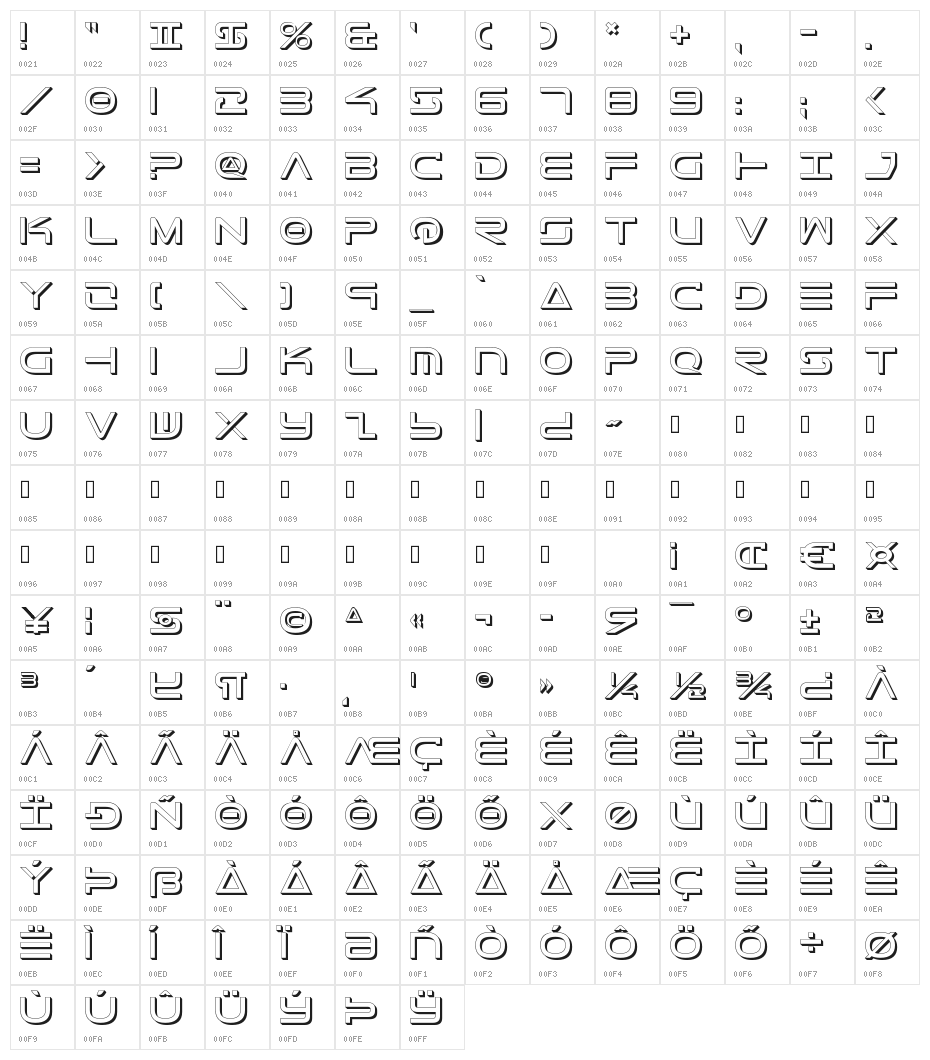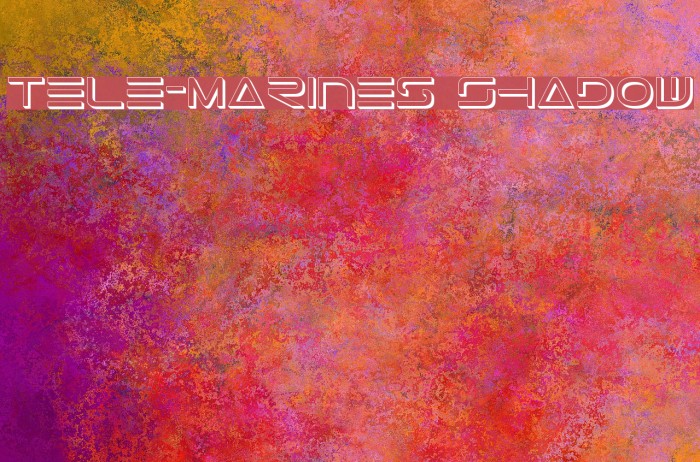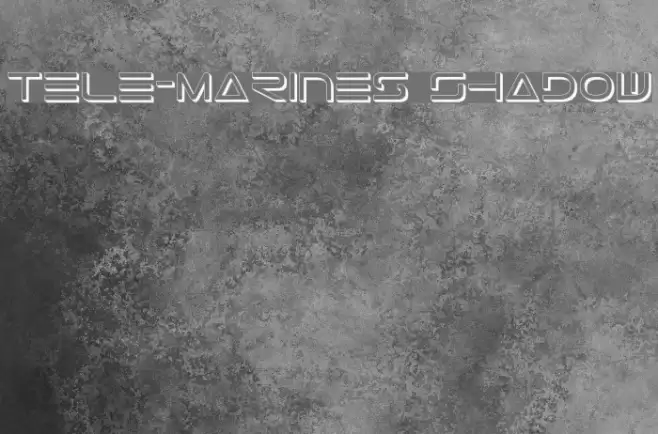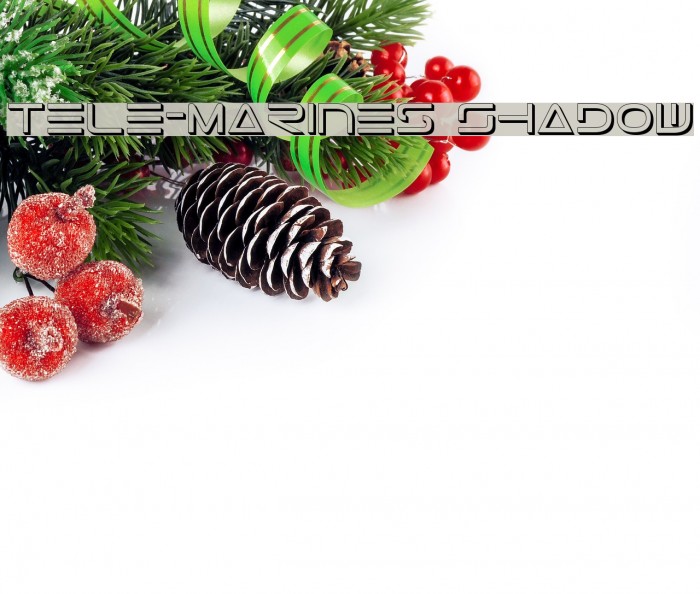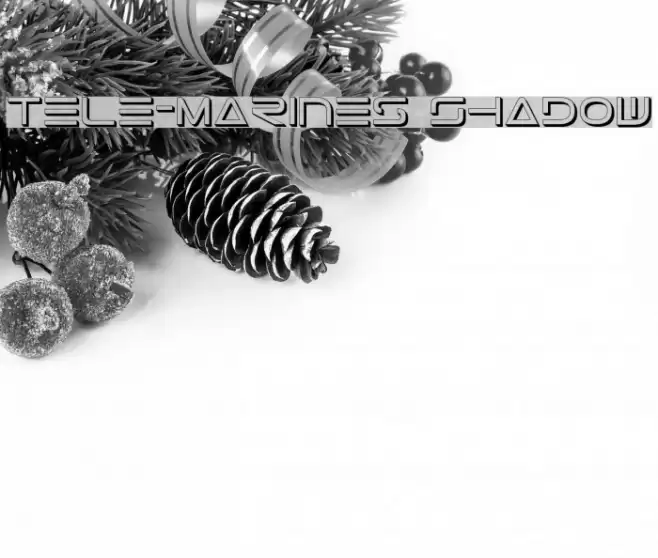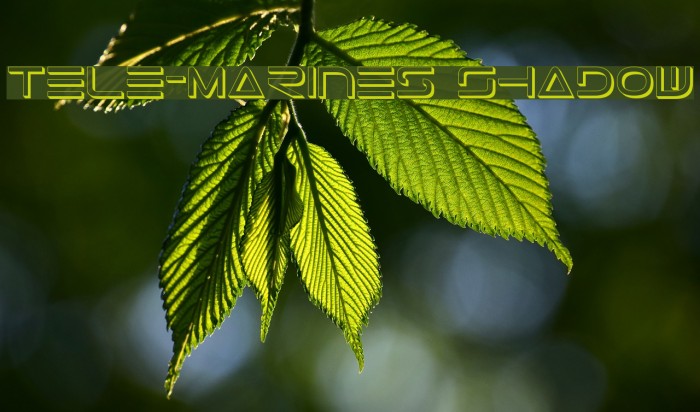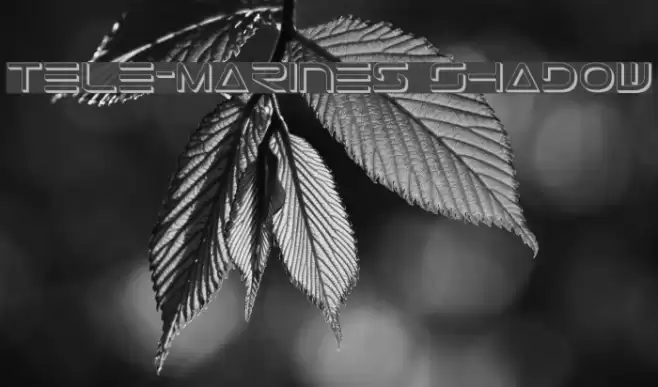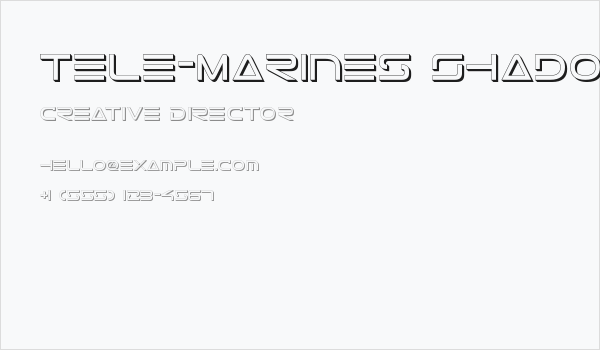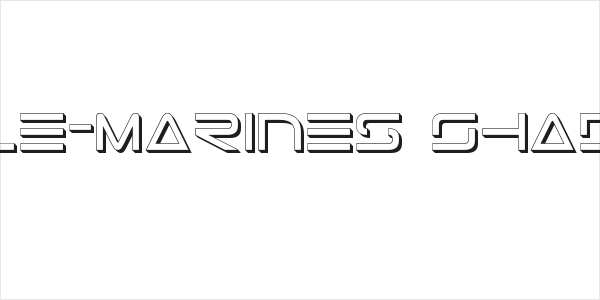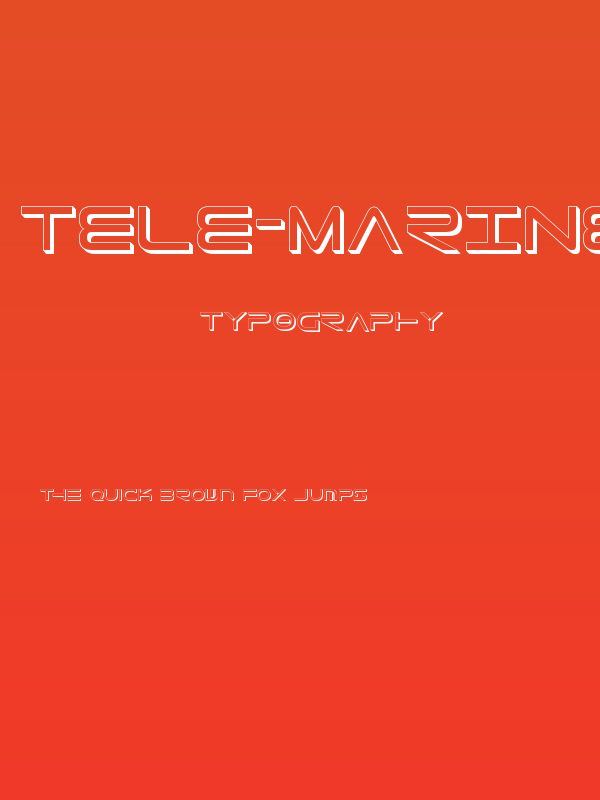
Tele-Marines Shadow Font
Tele-Marines Shadow Description
This font features a futuristic and geometric design, characterized by its hollow, outlined letterforms that create a sense of depth and dimension. The uppercase and lowercase letters share a consistent style, with sharp angles and clean lines that give it a modern, tech-inspired look. The numbers and special characters maintain this aesthetic, ensuring a cohesive appearance across all glyphs. Its unique shadow effect adds an extra layer of visual interest, making it stand out in digital and print media.
| Proposed Projects | Ideal for sci-fi themed projects, technology branding, video game titles, and digital media. |